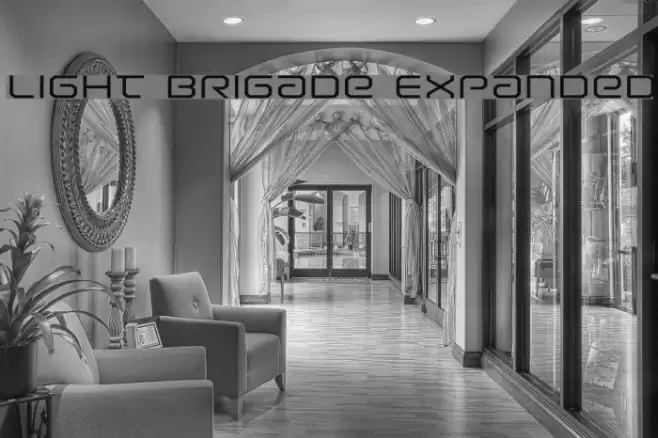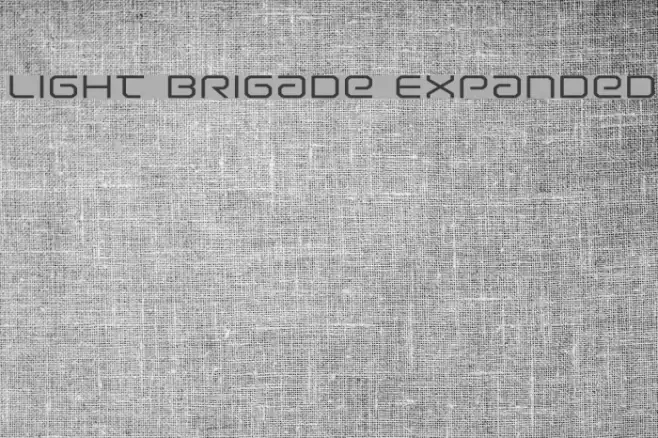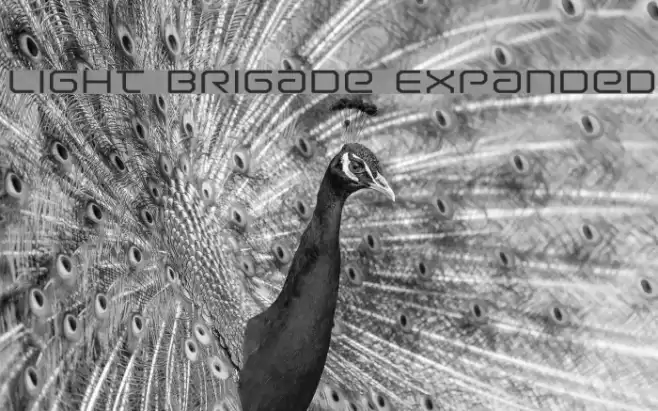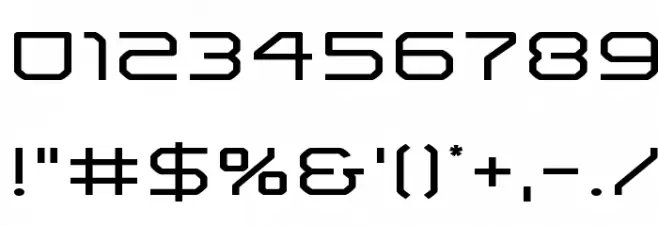
Light Brigade Expanded Font
Light Brigade Expanded Description
This font features a modern, geometric design with a futuristic appeal. The characters are composed of clean, straight lines and rounded corners, giving it a sleek and contemporary look. The uppercase and lowercase letters maintain a consistent height, contributing to a uniform appearance. The numerals and special characters follow the same design principles, ensuring cohesion across all elements. The expanded width of the characters provides a spacious feel, enhancing readability and making it suitable for various design applications.
A modern, geometric font with expanded width and rounded corners from Uncategorized fonts.
- Proposed Projects: Ideal for technology branding, futuristic posters, and digital interfaces.
- Overall Style: Futuristic